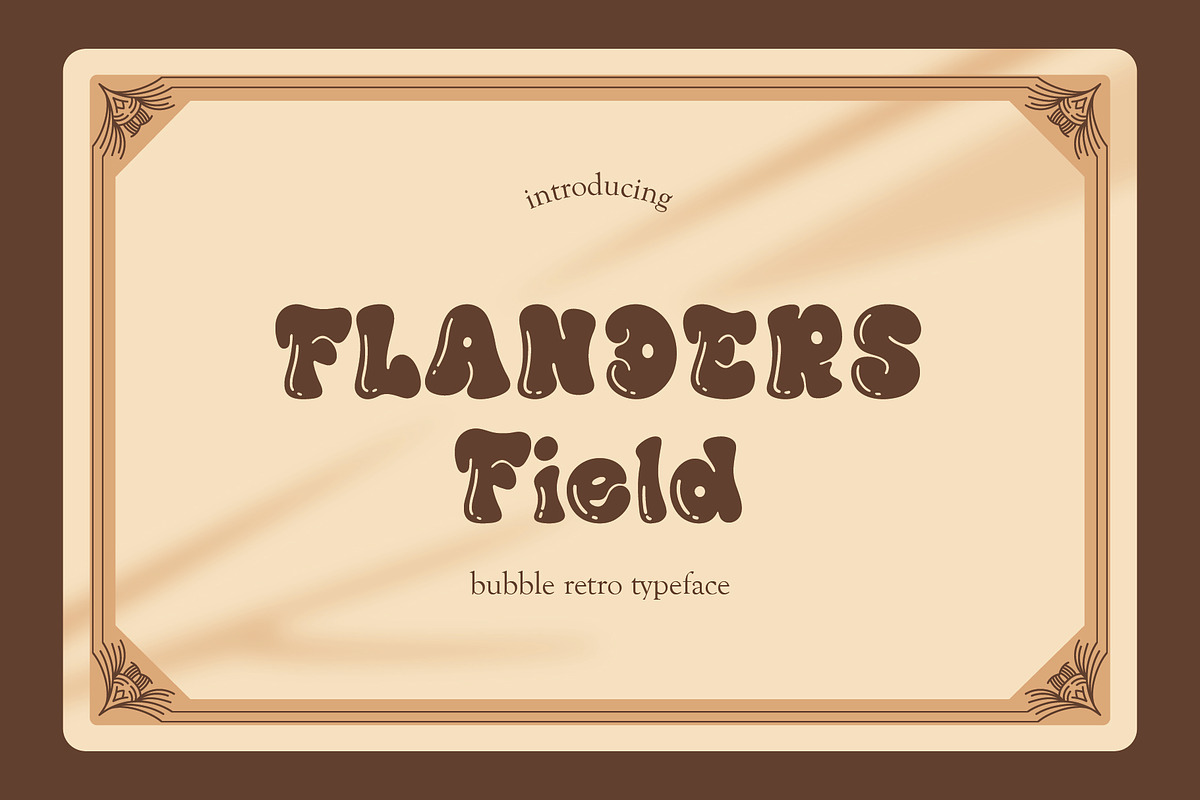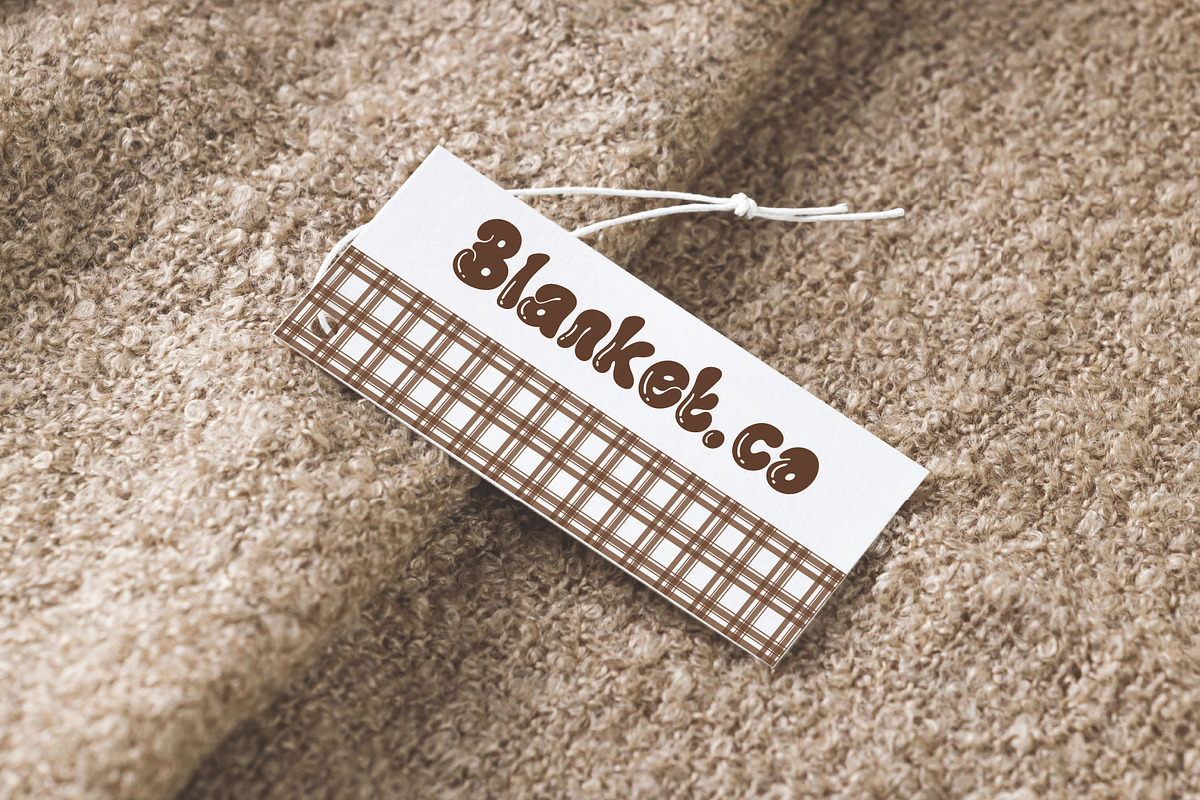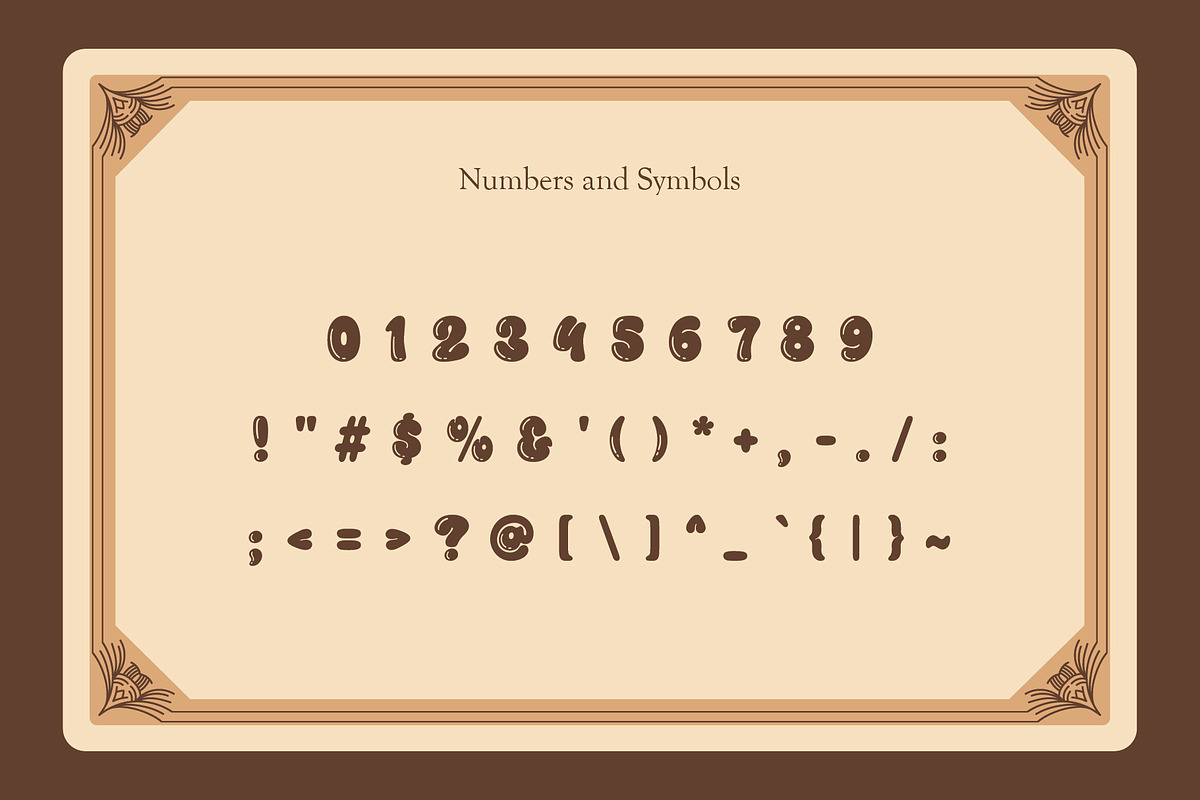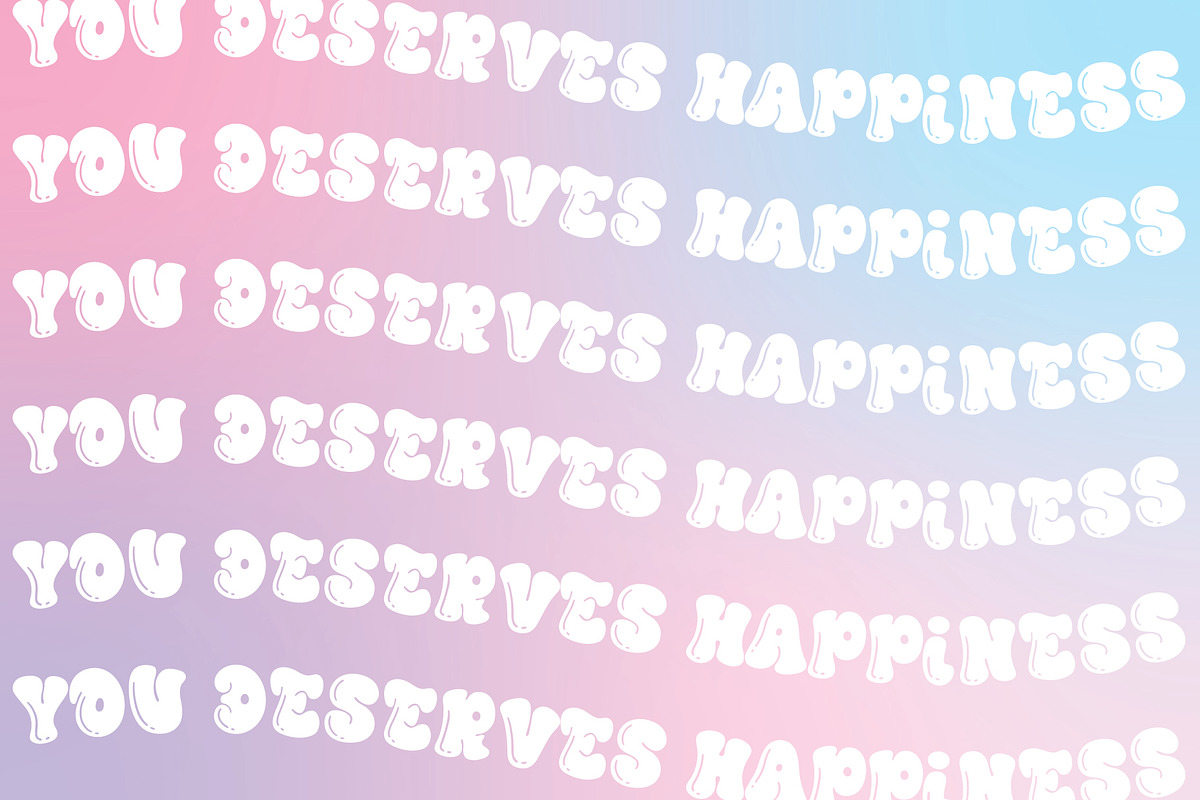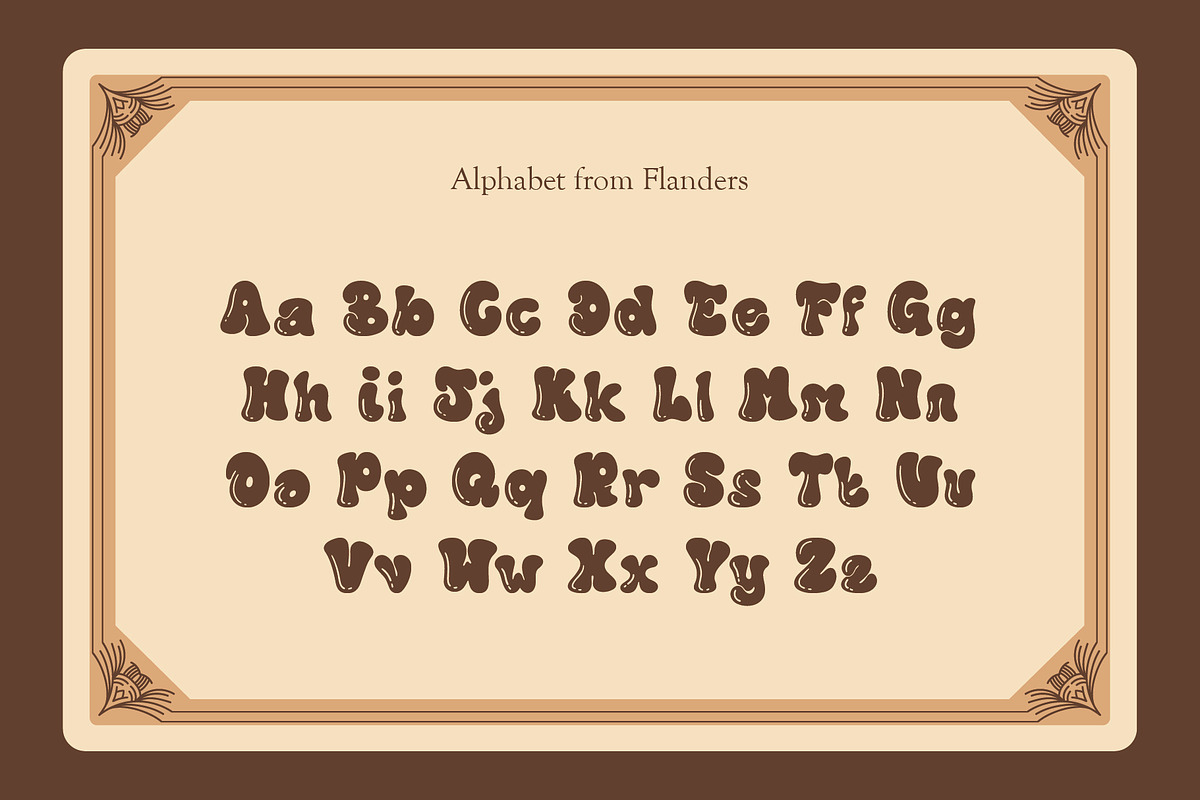
PGR Flanders - Bubble Font
Introducing Flanders, the ultimate retro bubble font that brings a unique, groovy, and playful vibe to your designs! Handcrafted with love, Flanders is perfect for adding a touch of nostalgia and fun to your projects. Whether you’re designing greeting cards, children’s books, posters, or branding for kids, Flanders is the ideal choice to make your creations stand out.
Flanders offers a complete alphabet, numbers, and basic punctuation, ensuring you have everything you need to create eye-catching and cohesive designs. Its distinctive style is sure to capture attention and bring a smile to anyone who sees it.